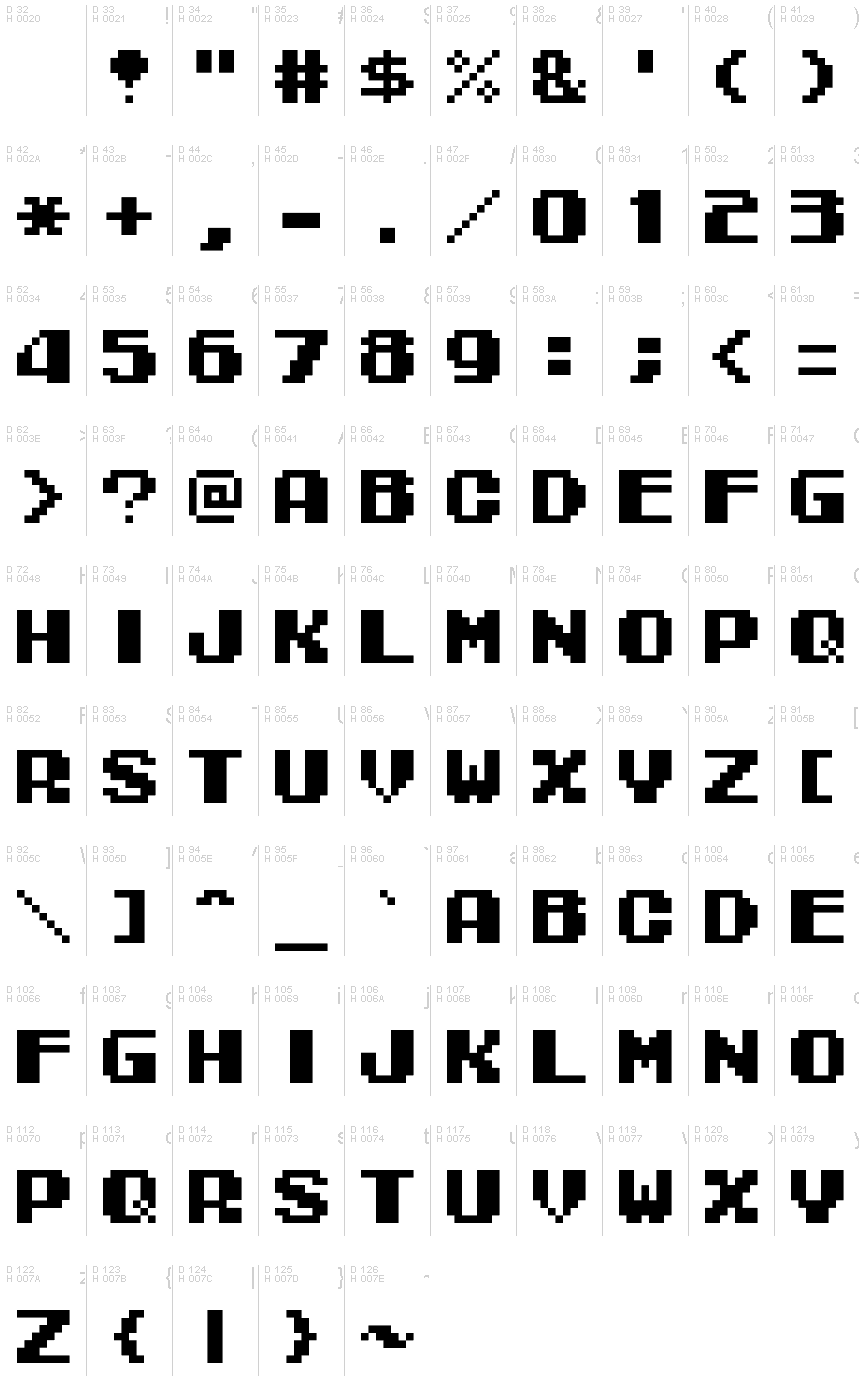
Tecmo Bowl Regular
TOUCHDOWN!!! A font based on Tecmo Bowl is finally here, complete with unicodes, Latin characters, Greek characters, AND CYRILLIC CHARACTERS TOO!!! Who can resist this offer!?
“Super Mario Bros. NES, which is based on “Arcade Classic, which is based on “KonaM” by “igorcbarros” (https://fontstruct.com/fontstructors/show/972420/igorcbarros)
Designer description: TOUCHDOWN! A font based on Tecmo Bowl is now available!